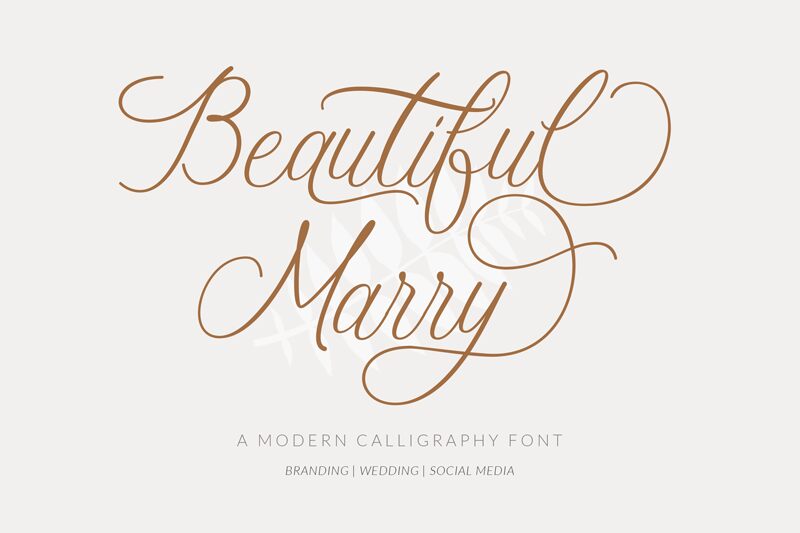
Beautiful Marry is a stunning calligraphy font designed by Ahwe Project. Its light weight adds an elegant touch to any project, from wedding invitations to branding materials. The fluid strokes and graceful curves of this font create a romantic and sophisticated aesthetic, perfect for adding a touch of class to your designs. Use it for anything from greeting cards and gift tags to restaurant menus and luxury fashion branding. With Beautiful Marry, your designs are sure to stand out with its exquisite calligraphic style that exudes charm and refinement.
Beautiful Marry